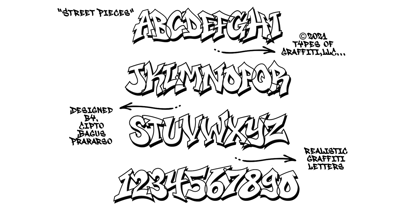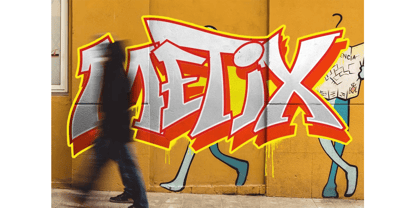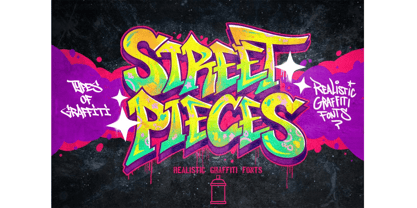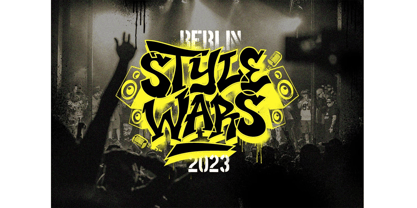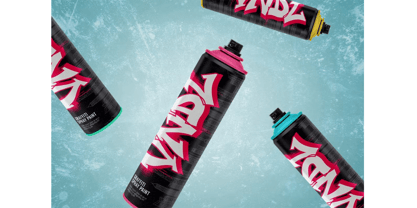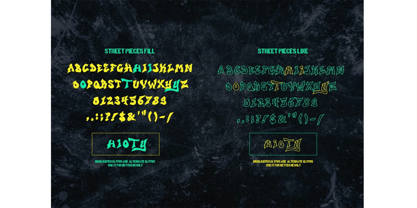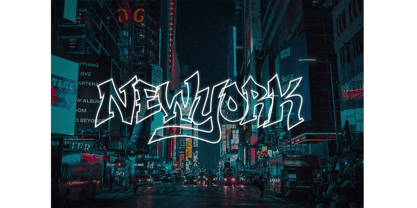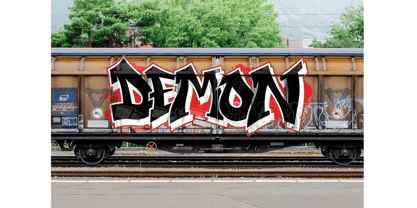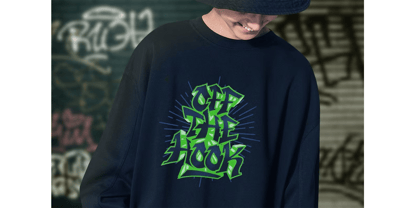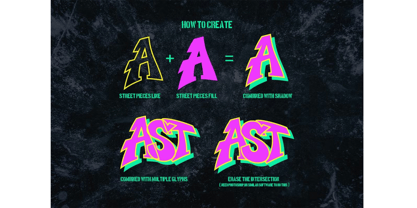
Street Pieces
by Types of Graffiti, LLC
• Street Pieces Line Regular
• Street Pieces Fill Regular
Now everyone can create simple pieces of graffiti in an easy way. With all our experiences in the real graffiti scene combined with our skill in creating fonts, we create these "Street Pieces."
This is a simple version of a wildstyle graffiti piece; you can clearly read the font; unlike heavy wildstyle, which not everyone can read clearly, your message is still clear with this font.
It's very easy to use, but for a better result, you should adjust the kerning and lead manually because the real graffiti is like that, and use your own graffiti style because there are no rules in graffiti. In this package, you’ll get two fonts. "Street Pieces Line" for the line, and "Street Pieces Fill" for the fill.
Don’t forget to combine with "alternate" fonts; see the preview fonts for the sample; and also add a drop shadow or extrude effect to make it more realistic.